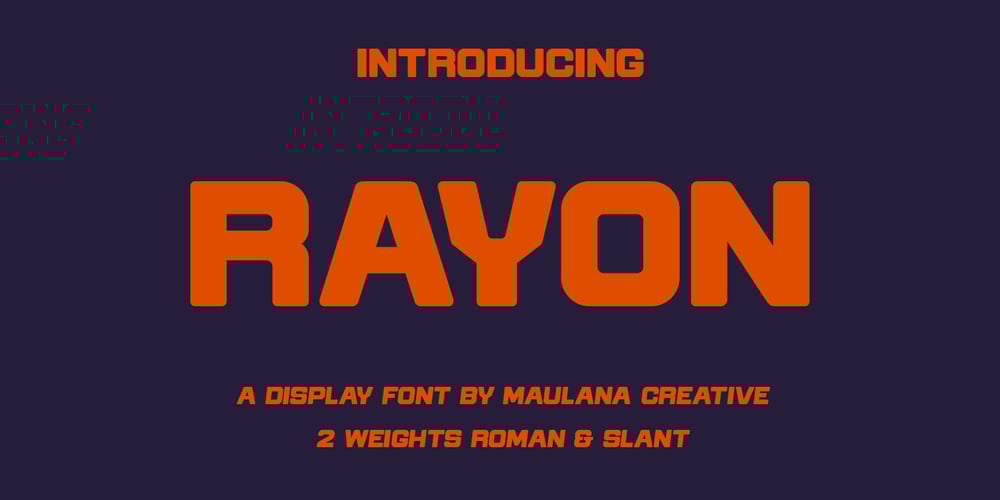
MC Rayon Font Family was designed by Gilang Maulana and published by Maulana Creative. MC Rayon contains 2 styles and family package options. Rayon is a tech-square sans display font with all-caps design. With heavy stroke and slanted style, fun character with a bit of ligature and alternates. To give you extra creative work. Rayon font support multilingual more than 100+ language. This font is good for logo design, Social media, Movie Titles, Books Titles, short text even long text letters, and good for your secondary text font with script or serif. Make stunning work with Rayon font. Cheers,Maulana Creative